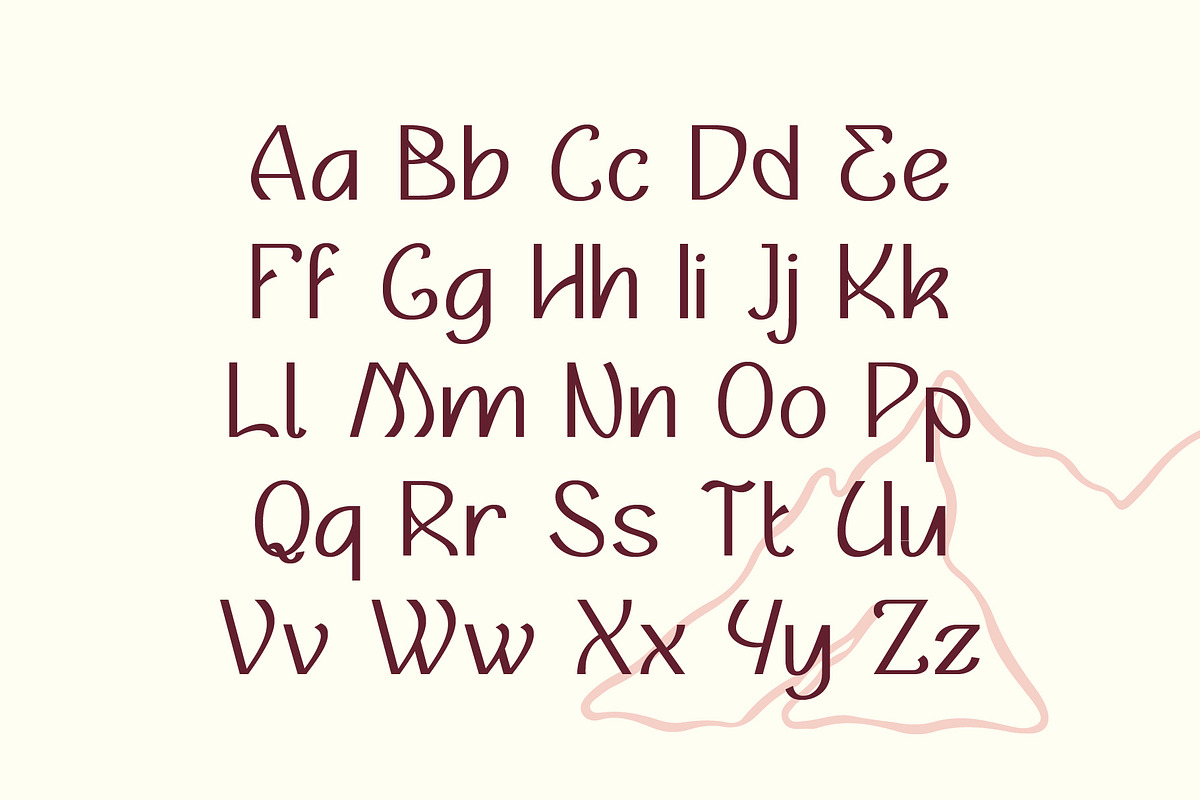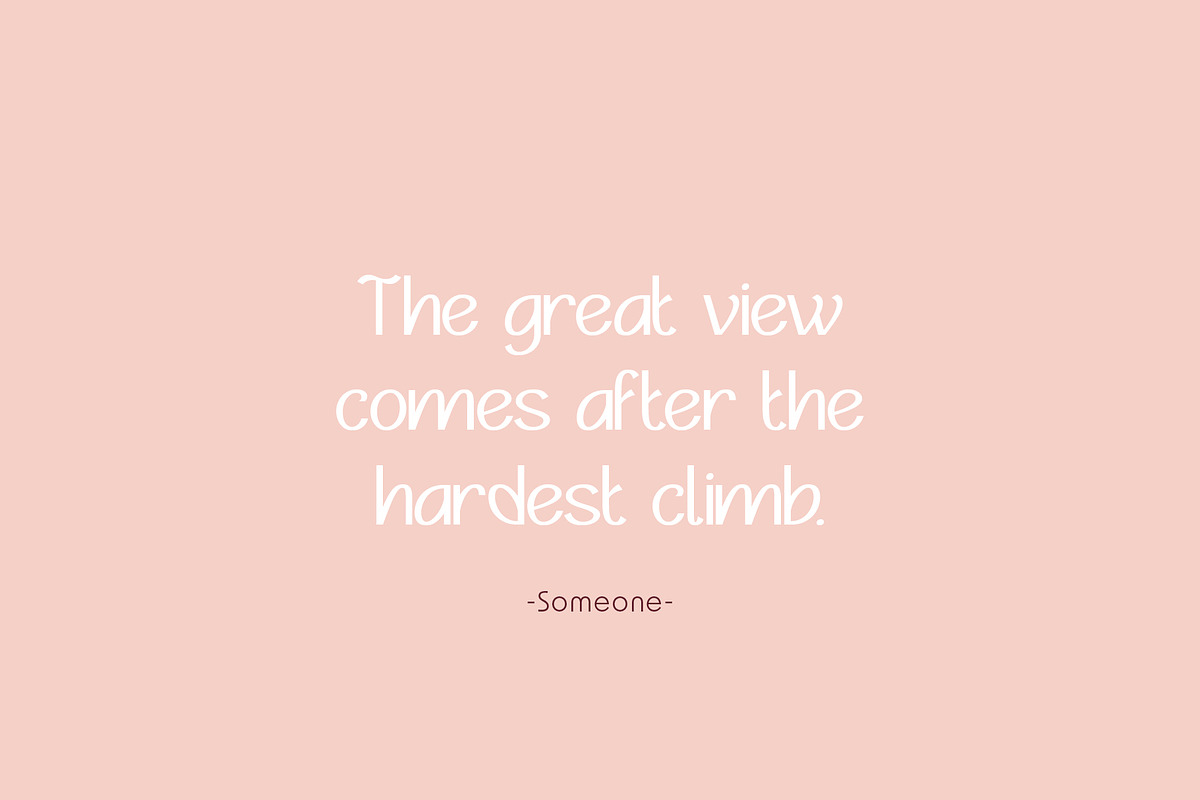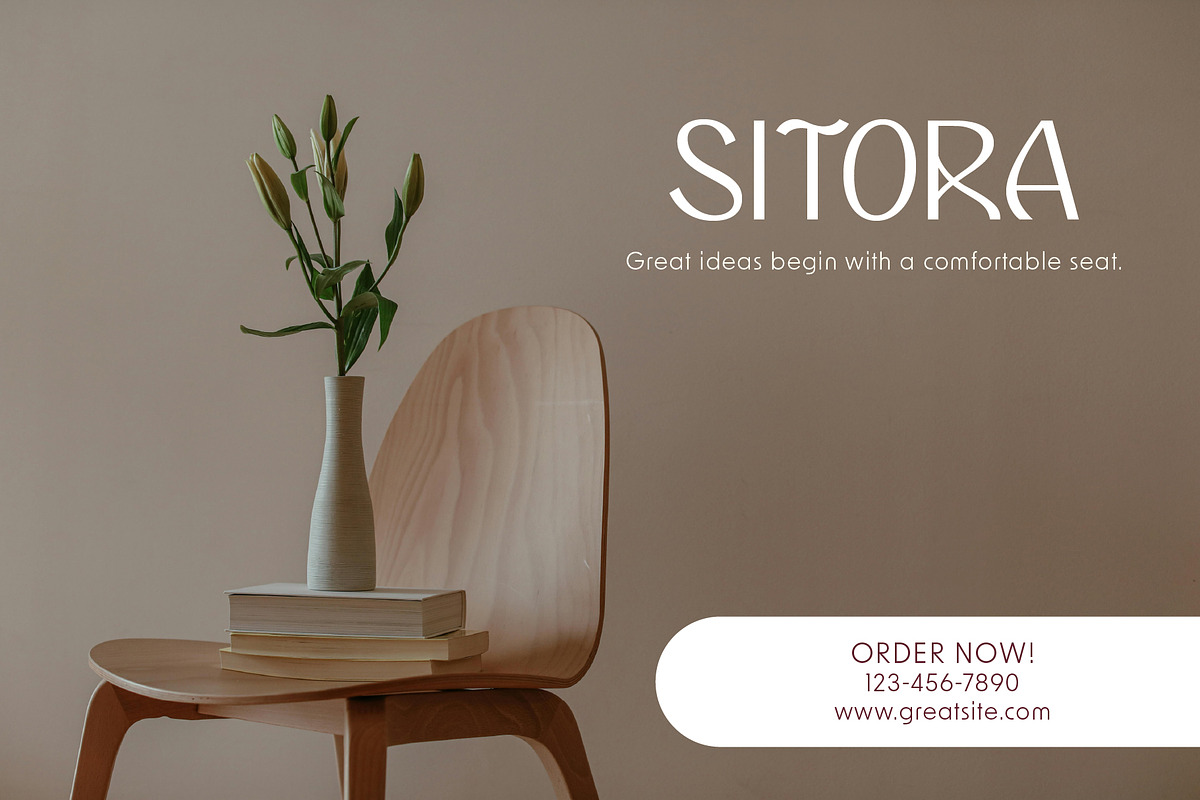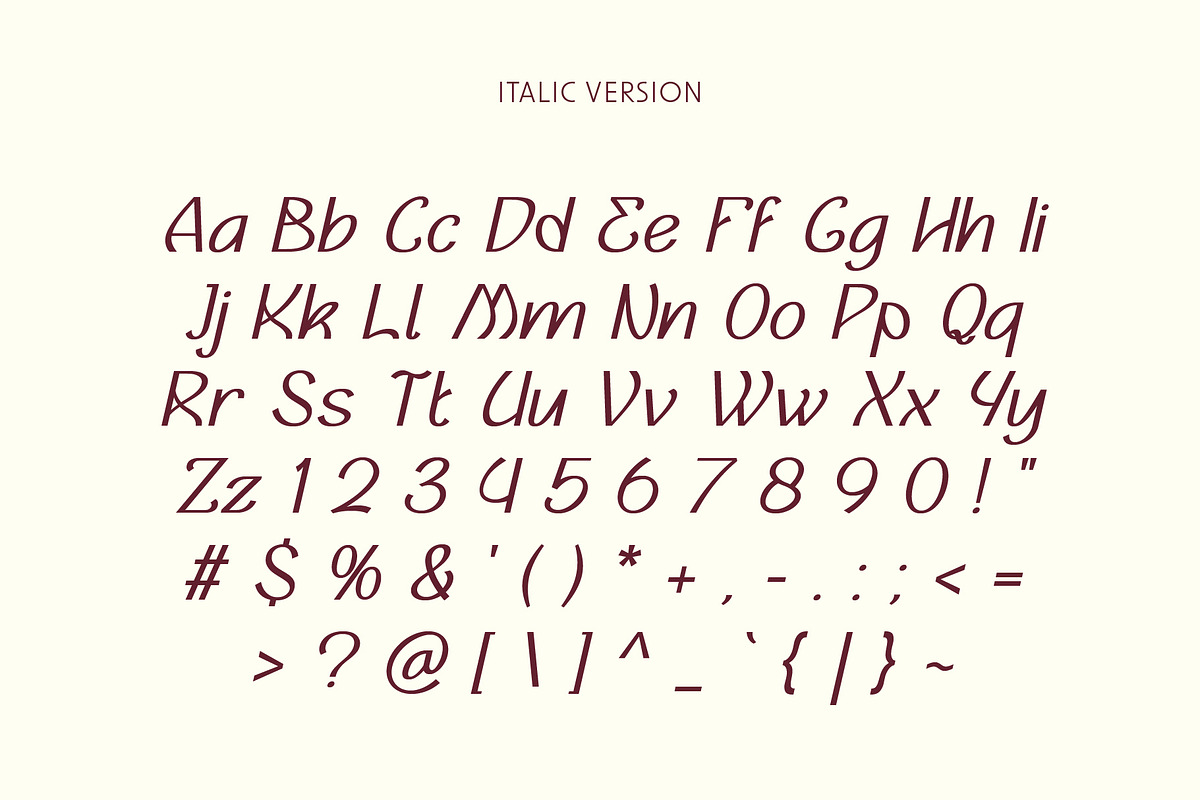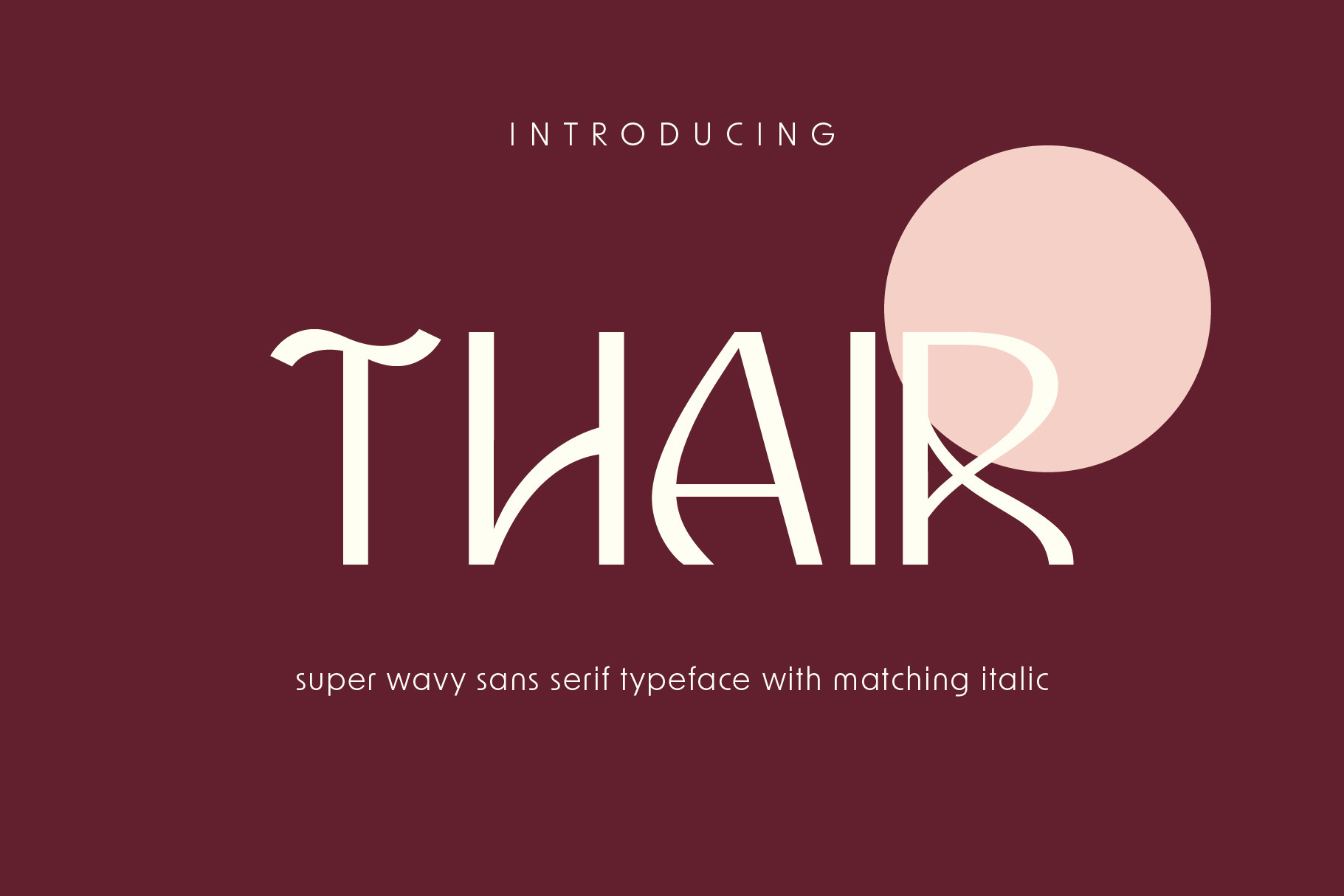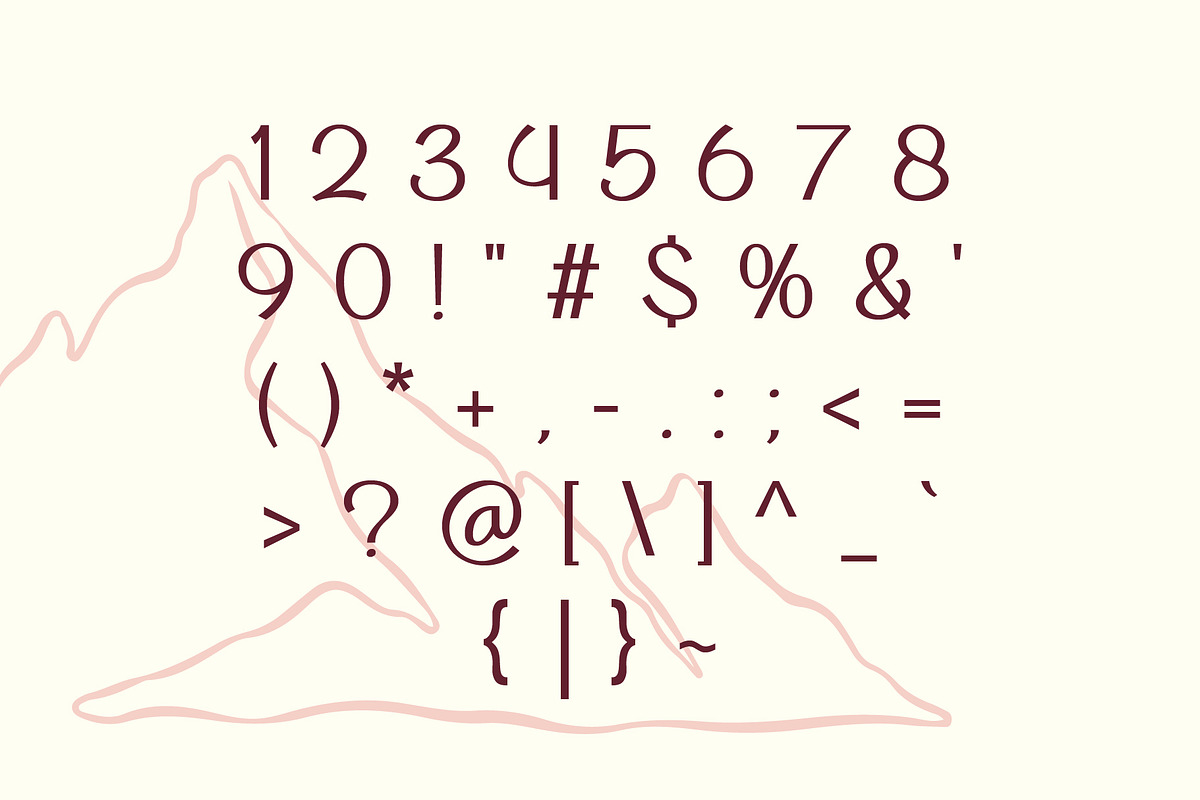
Thair - Sans Serif Font
Get the Thair font to stand out your artwork, be easy to read, and catch the eye.
This font includes with italic.Add a touch of playfulness to your designs with Thair, a hand-drawn sans serif font that’s perfect for creating eye-catching designs. With its unique and fancy design, Thair is ideal for creating posters, magazines, greeting cards, and quotes that stand out.
Thair is a font that’s full of personality and charm. Its hand-drawn design makes it perfect for anyone who wants to add a touch of whimsy to their designs.
Thair includes a full range of characters, including uppercase and lowercase letters, numbers, and basic punctuation. Plus, you’ll also get a matching outline version that’s perfect for creating unique and eye-catching designs.